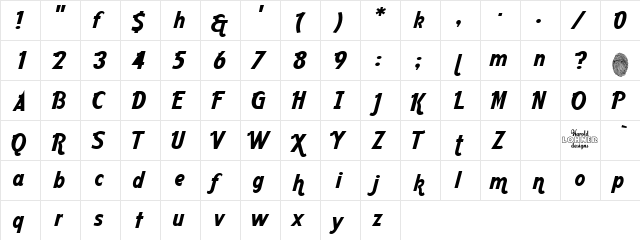
Stempel Regular
Design Context for Stempel Typeface
Stempel offers clean, dependable letterforms without strong stylistic allegiance, making it a practical choice for designers who need flexibility.